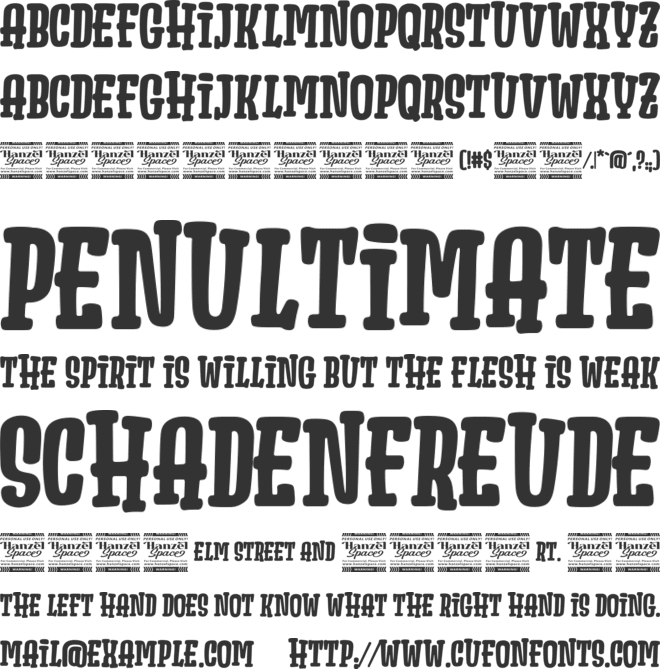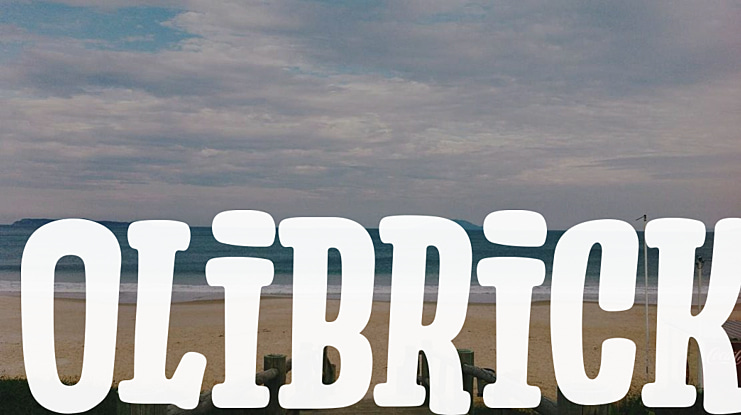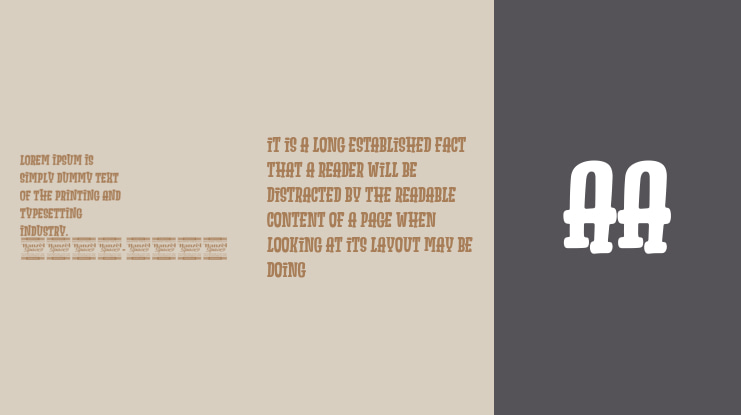
Introducing Olibrick Font, a font with a fun and slightly flexible character. This font is ideal for product branding due to its unique shape. It can be applied to branding or packaging projects.
Stylistic alternates for key lowercase characters are also available. You can access them in the Adobe Illustrator Glyphs panel or under Stylistic Alternates in the Adobe Photoshop OpenType menu.
- Full set of standard alphabet and punctuation
- Multilingual characters (ÁÂÄÀÅÃÆÇÐÉÊËÈÍÎÏÌÑÓÔÖÒØÕÚÛÜÙẂŴẄẀÝŶŸỲ áâäàåãæçðéêëèíîïìñóôöòøõœúûüùẃŵẅẁýŷÿỳ€£¥)